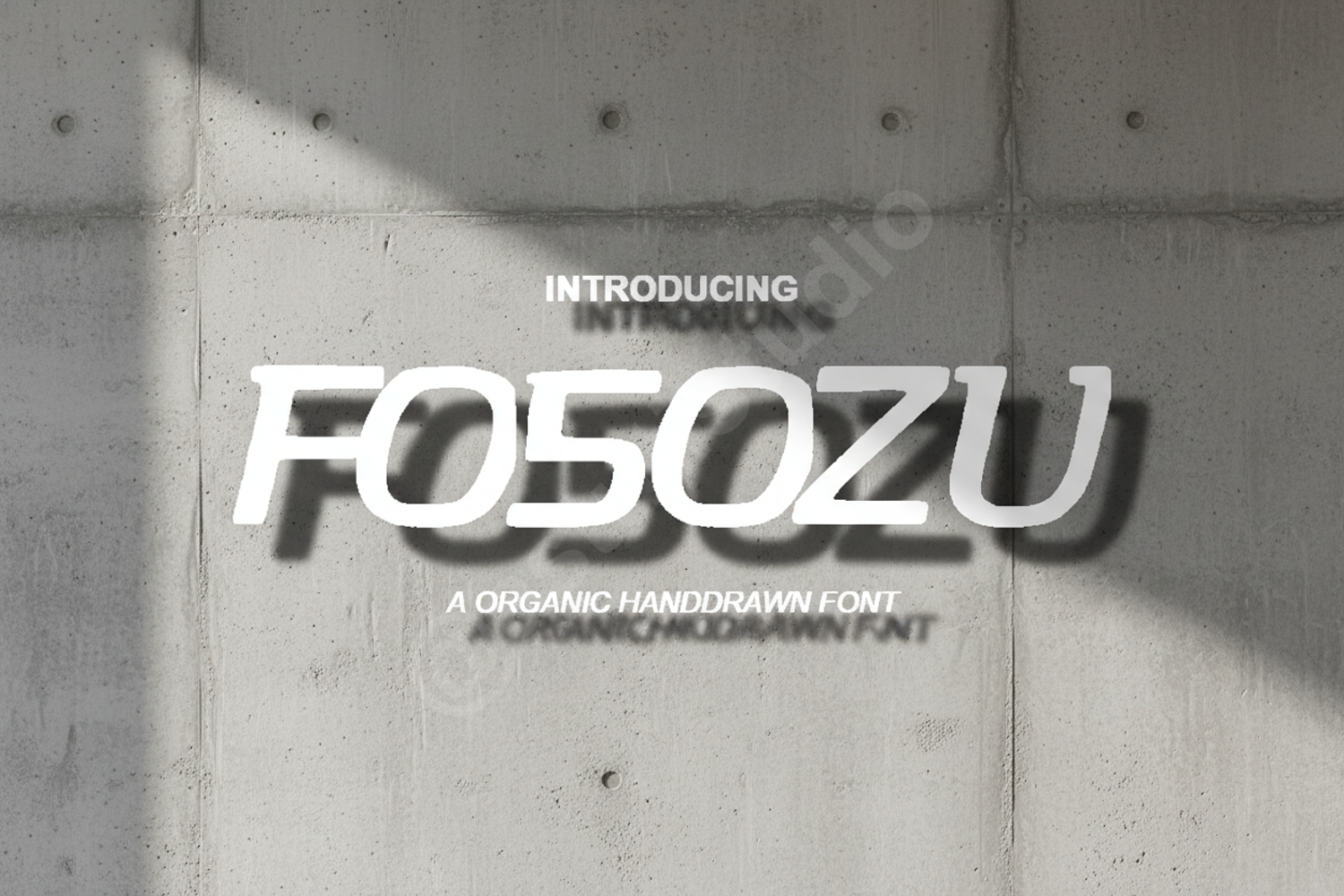
Fosozu - Modern Minimalist Sans Serif Font
Fosozu
Elevate your creative projects with Fosozu, a premium modern sans serif typeface designed for ultimate versatility. Fosozu combines clean geometric lines with a sophisticated aesthetic, making it the perfect choice for designers looking to achieve a professional and high-end look. Whether you are working on a minimalist brand identity or a complex editorial layout, this font provides the clarity and elegance your work deserves.
- Full character set including uppercase, lowercase, numbers, and punctuation
- Multilingual support for global accessibility
- Branding and Logo Design: Create memorable and timeless identities.
- Editorial and Magazines: Perfect for high-impact headlines and clean body text.
- Social Media Graphics: Stand out on digital platforms with sleek typography.
- Web Design: Ensure readability and modern appeal across all devices.
- Stationery and Packaging: Add a touch of modern luxury to physical products.